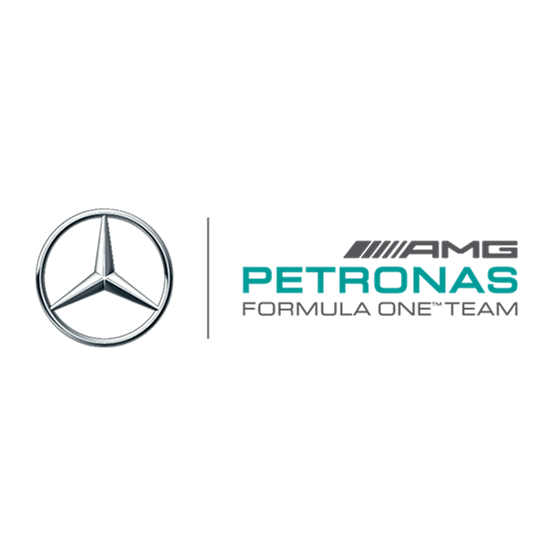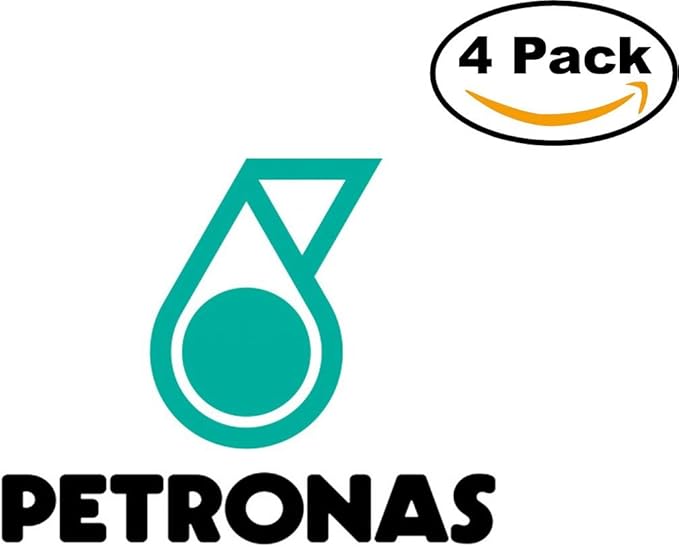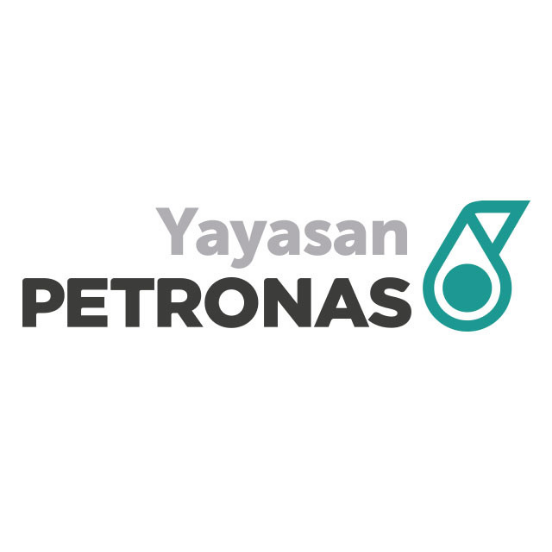
Petronas Logo Font
Download free fonts for petronas logo. Download free petronas vector logo and icons in ai eps cdr svg png formats. The petronas name has been repositioned below the oil drop and the font has been sharpened to enhance visibility and give prominence to the oil drop in the logo.